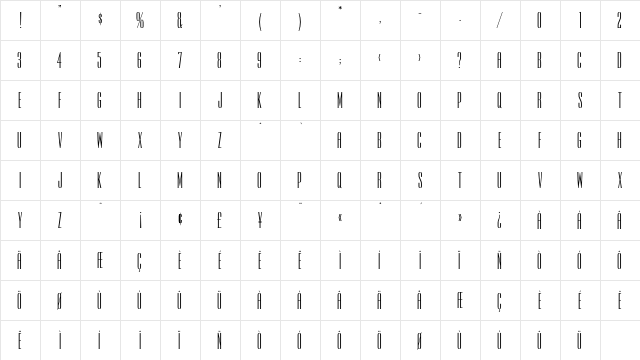
Iris .. Plain Font Preview
Iris .. Plain
Iris .. Plain Font Details
| Style | .. Plain |
| Year | 1988 |
Design Context for Iris Typeface
Iris is a composed and adaptable typeface that performs quietly and consistently across a wide range of design contexts.